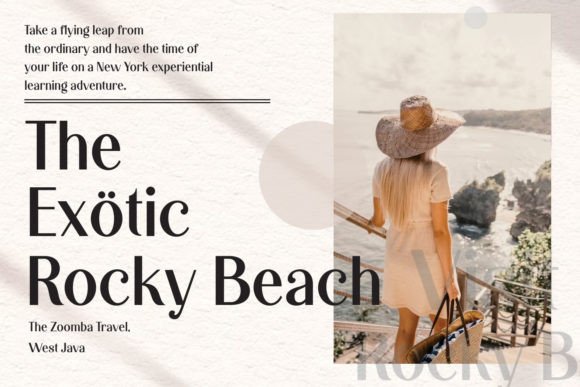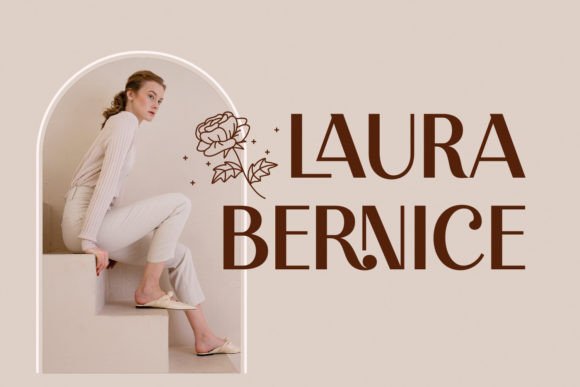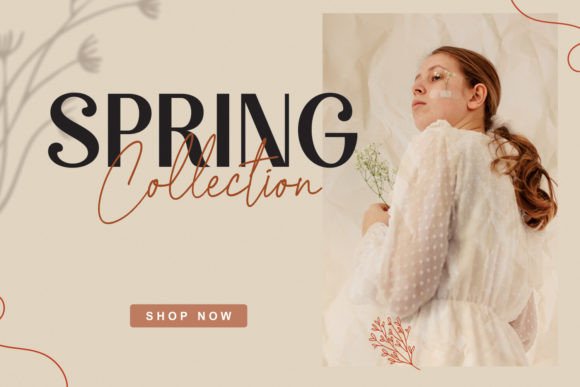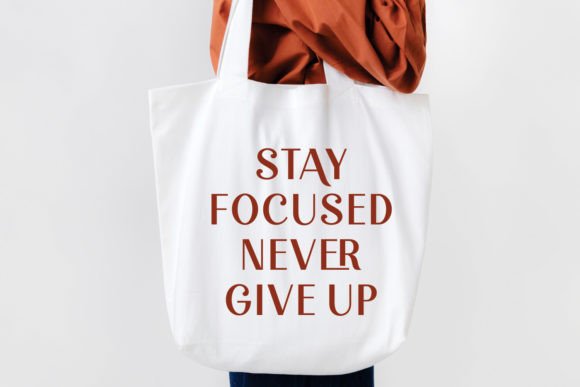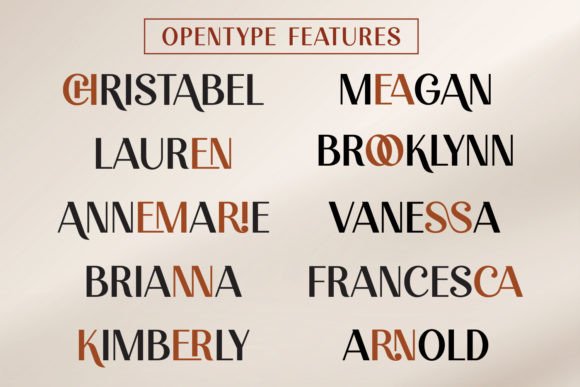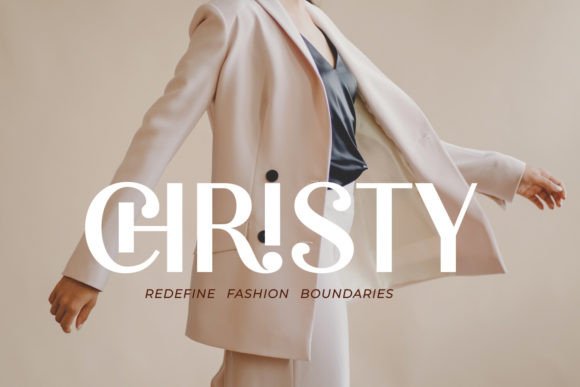
Introduction to Kingstone Sans Font
As you sit in front of your design screen, staring at a blank canvas, you know that the perfect font can make all the difference. The right typeface can elevate your creative project from ordinary to extraordinary, capturing the essence of your vision and leaving a lasting impression on your audience. And that’s exactly what the Kingstone Sans Font is designed to do – make a bold statement and command attention.
Whether you’re working on a high-end branding project, crafting a luxury packaging design, or creating a compelling editorial piece, the Kingstone Sans Font is a valuable resource that can help you achieve your goals. Its unique blend of elegance and authority makes it an ideal choice for designers who demand the best from their design resource.
Key Features of Kingstone Sans Font
- High-quality, professional font ideal for creative projects and design resources.
- Features a clean, modern design with a transparent background, perfect for backgrounds or overlays.
- Includes a wide range of characters, including uppercase and lowercase letters, numbers, and punctuation.
- Designed for use in a variety of design applications, including logos, graphics, and digital displays.
- Can be easily customized and edited to fit the needs of your creative project.
Honest Review: Kingstone Sans Font
One of the standout features of the Kingstone Sans Font is its clean and modern design. It’s perfect for use on transparent backgrounds or in situations where a high-quality font is necessary. The font’s versatility makes it suitable for a wide range of applications, from logos and branding to digital displays and signage.
- High-quality design and modern feel
- Transparent background support for seamless integration
- Only available in a single weight, which may limit its use in certain situations
- No extensive language support, which may be a concern for designers working on global projects
Overall, I’m impressed with the Kingstone Sans Font, and I’d definitely recommend it to designers looking for a high-quality, free download font. While it may have some limitations, its clean design and versatility make it a valuable addition to any design resource collection.
For the best results, use the Kingstone Sans Font on a transparent background to create a clean and modern look.
Experiment with different font sizes and styles to add visual interest to your design.
Common Use Cases for Kingstone Sans Font
The Kingstone Sans Font is ideal for a variety of creative projects, including:
Graphic design
Brand identity
Marketing materials
Web design